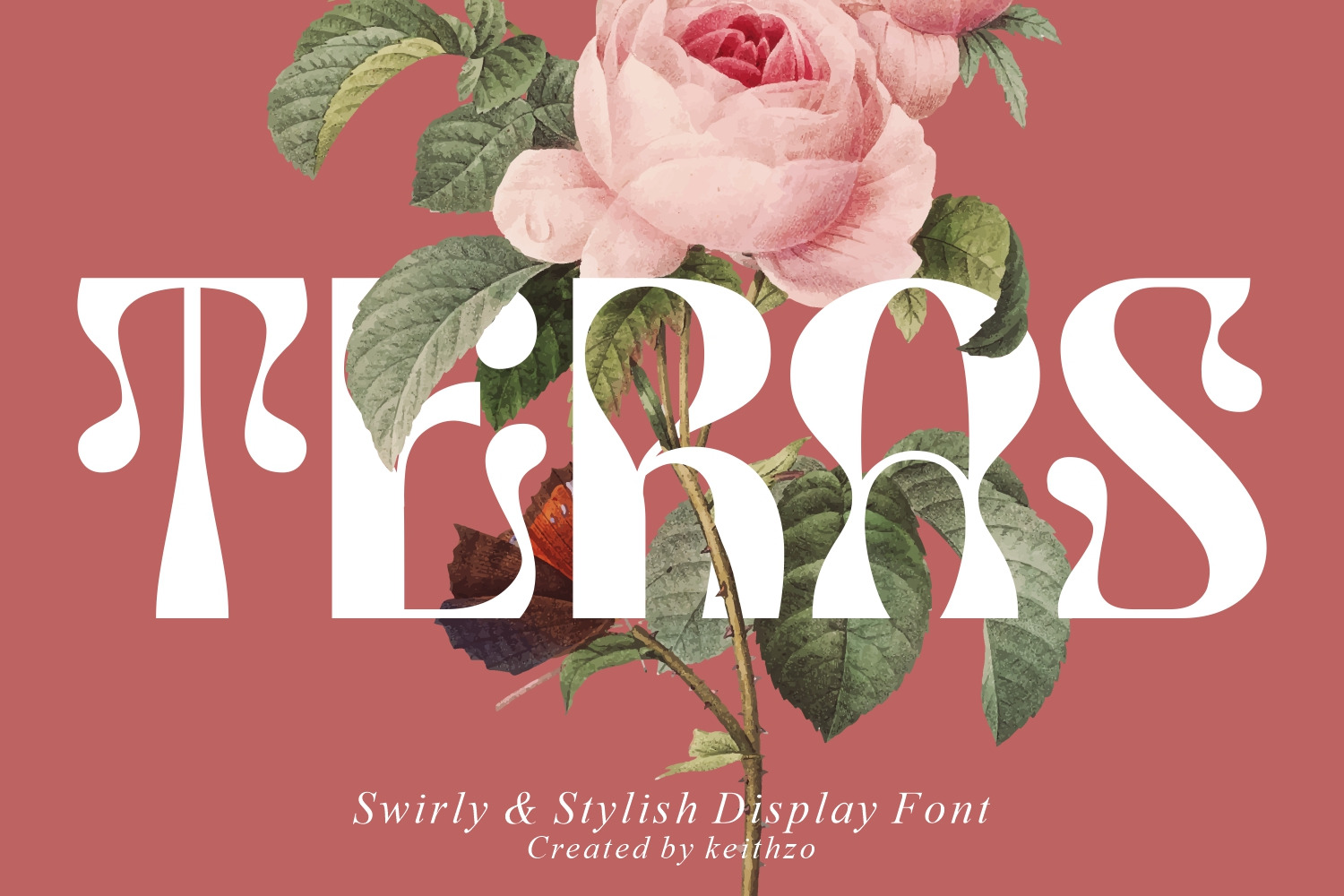
Teras - Display Font
Inspired by the shape of a leaf in the backyard, teras font tries to break from the existing basic rules, the twists and turns in each character make this font look very beautiful and natural. different from most display fonts in general, i designed this font very carefully so that it is easy to see its legibility suitable to be applied to various kinds of graphic design needs, you will find a special sensation when using this font.